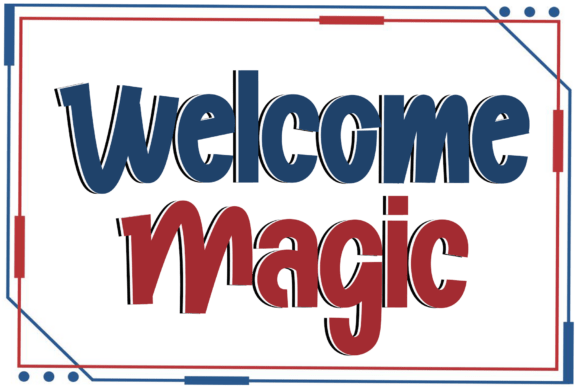
Welcome to the Enchanting World of Welcome Magic Font
In the realm of typography, few fonts manage to capture the essence of both modernity and nostalgia as effectively as the Welcome Magic Font. This bold and playful display typeface has been making waves in the design community with its unique blend of contemporary curves and retro charm. Whether you’re a seasoned designer or a DIY enthusiast, Welcome Magic Font is a versatile tool that can elevate your projects with its lively and welcoming style.
The Design Philosophy Behind Welcome Magic Font
Welcome Magic Font is not just another addition to the vast sea of typefaces; it’s a carefully crafted design that aims to bring energy and character to any project. Its thick, rounded letters and smooth flow are specifically designed to catch the eye, making it an ideal choice for titles, posters, packaging, invitations, and branding projects that require a touch of fun and personality.
Key Features of Welcome Magic Font
- Bold and Playful: The font’s bold appearance ensures it stands out, while its playful nature adds a touch of whimsy to any design.
- Modern Curves and Retro Charm: Welcome Magic Font strikes the perfect balance between modern curves and retro charm, making it versatile for various design needs.
- Thick, Rounded Letters: The thickness and roundness of the letters contribute to its friendly and approachable feel.
- Smooth Flow: The smooth flow between letters ensures that the text is easy to read, even at larger sizes.
- Dual-Tone Style Options: One of the standout features of Welcome Magic Font is its dual-tone style options. This allows for creative layering and color play, adding depth and vibrancy to designs.
Applications of Welcome Magic Font
The versatility of Welcome Magic Font makes it suitable for a wide range of applications. Here are some of the areas where this font truly shines:
Digital Graphics
In the digital realm, standing out is crucial. Welcome Magic Font, with its bold and playful demeanor, is perfect for:
- Social Media Graphics: Create eye-catching posts, stories, and banners that demand attention.
- Website Headers: Use it for headers and titles to make your website more engaging and lively.
- Email Newsletters: Add a touch of personality to your newsletters with this friendly font.
Print Layouts
For print materials, the font’s clarity and charm can enhance:
- Posters and Flyers: Ideal for creating vibrant and engaging promotional materials.
- Brochures and Catalogs: Add a playful touch to your marketing materials.
- Business Cards: Stand out with a unique and memorable business card design.
Cricut and Silhouette Crafts
Crafting and DIY projects can also benefit from Welcome Magic Font:
- Vinyl Signs: Create personalized and eye-catching signs for your home or business.
- Paper Crafts: Enhance your cards, invitations, and scrapbooking projects with this delightful font.
- Iron-On Designs: Add a custom touch to t-shirts, hoodies, and other apparel.
Why Choose Welcome Magic Font?
With so many fonts available, why should Welcome Magic Font be your go-to choice? Here are a few compelling reasons:
- Unique Style: Its blend of modern and retro elements makes it unique and memorable.
- Versatility: Suitable for a wide range of projects, from digital graphics to print materials and crafts.
- Easy to Read: Despite its bold nature, the font maintains readability, even at larger sizes.
- Customizable: The dual-tone style options offer flexibility in design and color choices.
Tips for Using Welcome Magic Font Effectively
To get the most out of Welcome Magic Font, consider the following tips:
- Experiment with Colors: Take advantage of the dual-tone style options to add depth and interest to your designs.
- Mix and Match: Combine Welcome Magic Font with other fonts to create contrast and hierarchy in your designs.
- Consider Your Audience: Ensure the font aligns with the tone and message of your project.
- Play with Sizes: Use different sizes to emphasize certain words or phrases and create visual interest.
Welcome Magic Font is more than just a typeface; it’s a design statement. Its bold, playful, and welcoming style makes it an excellent choice for designers and DIY enthusiasts looking to add a touch of magic to their projects. Whether you’re working on digital graphics, print layouts, crafts, or social media visuals, this versatile font is sure to bring energy and character to your designs. With its unique blend of modern curves and retro charm, Welcome Magic Font is poised to become a favorite in your typography arsenal.